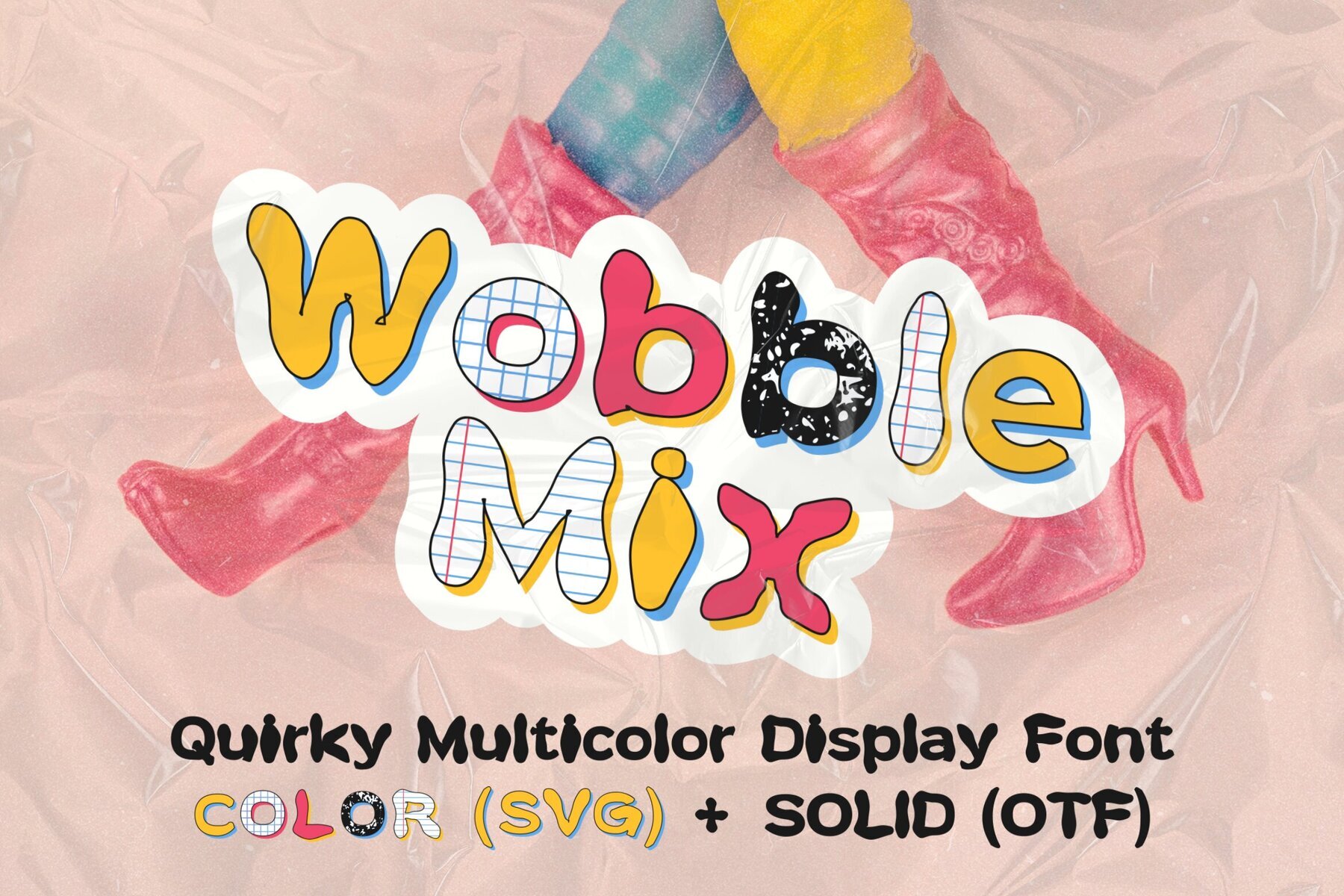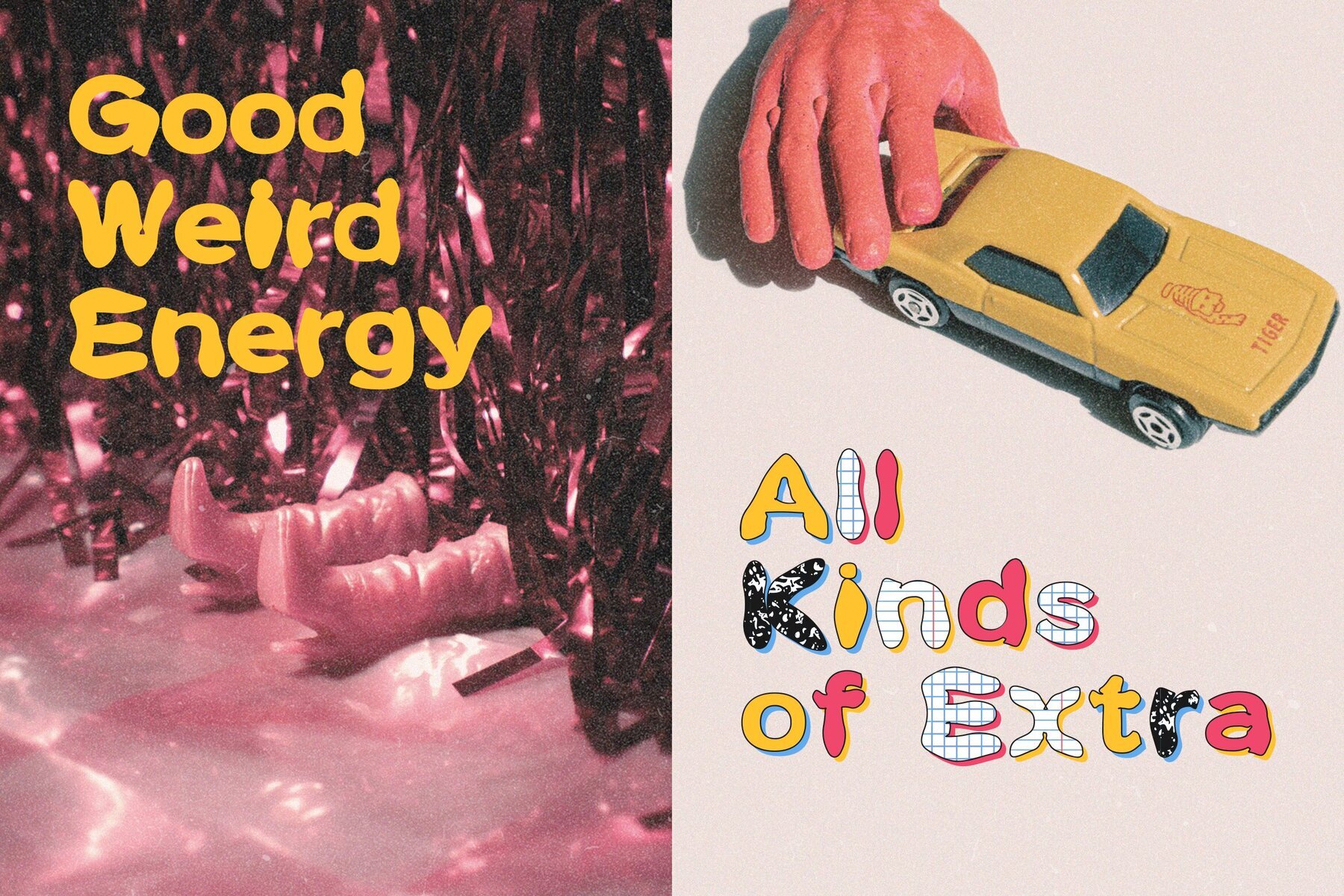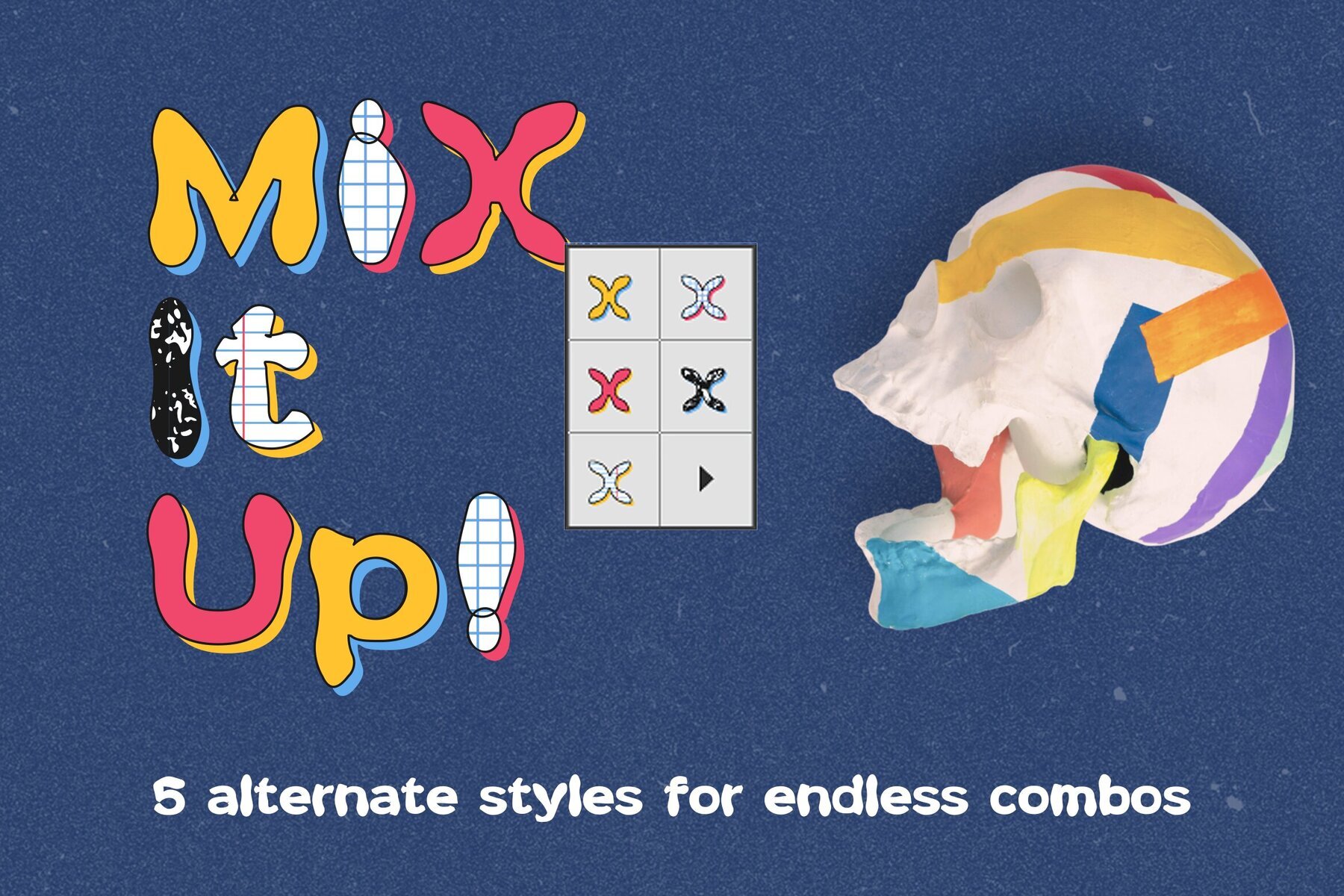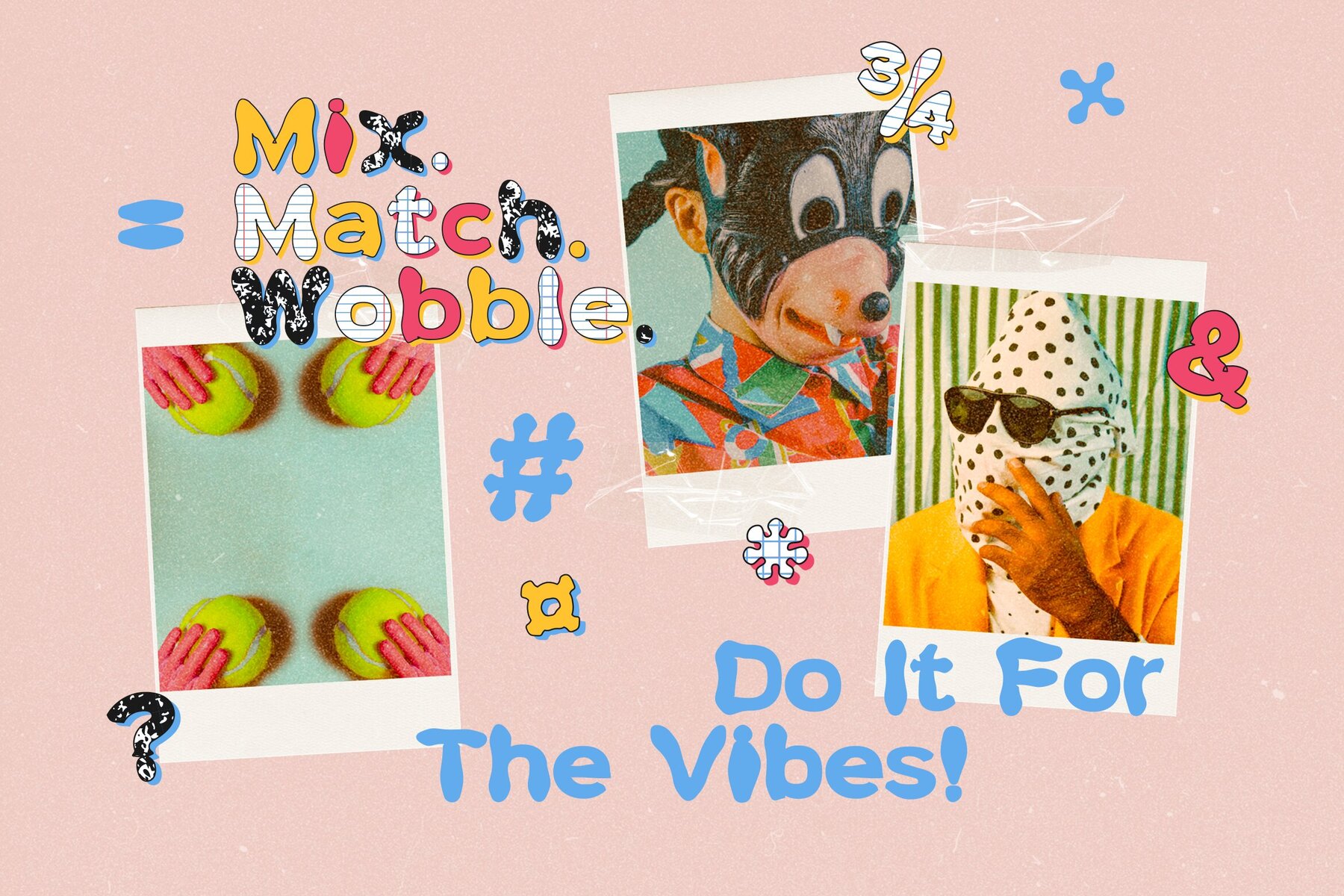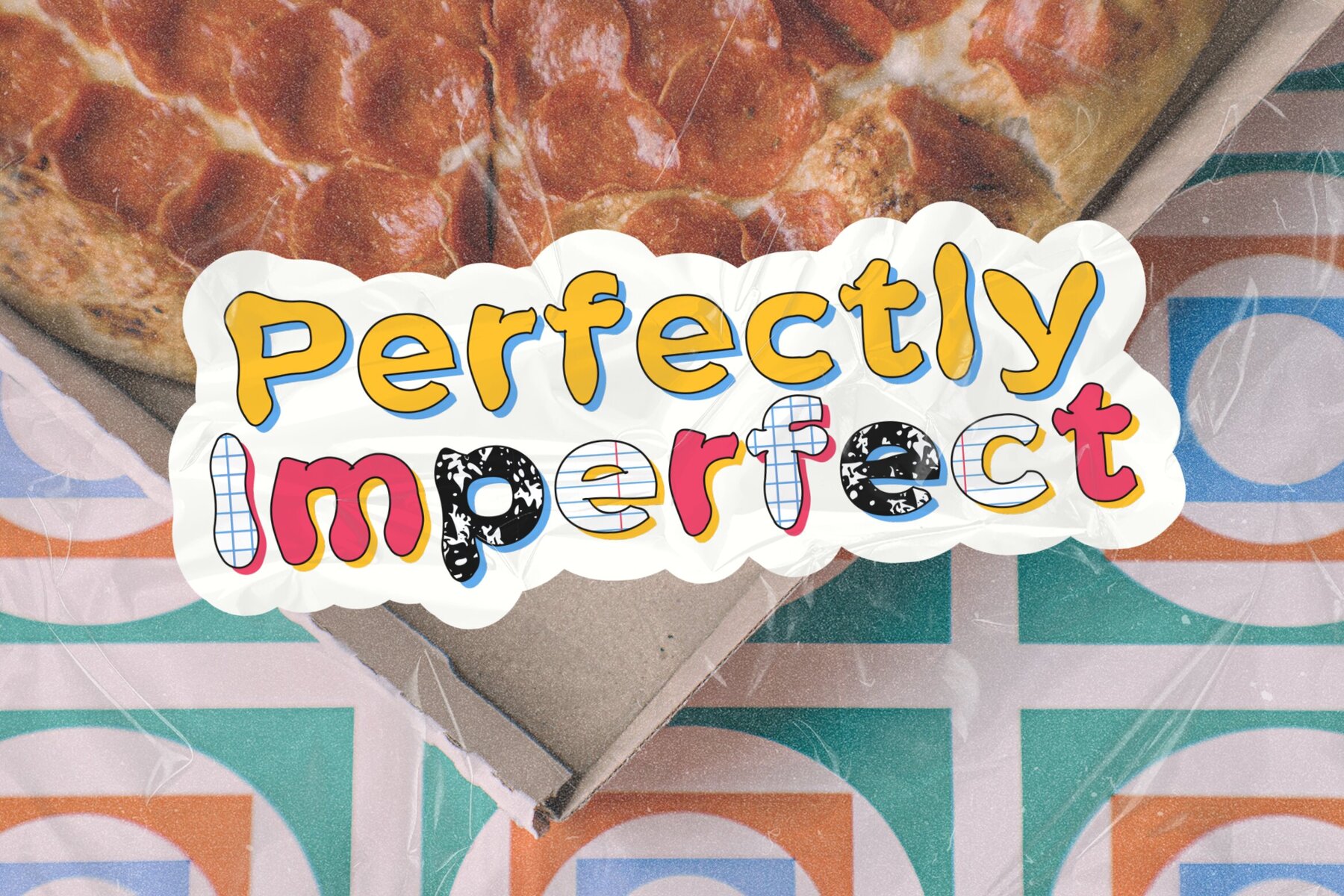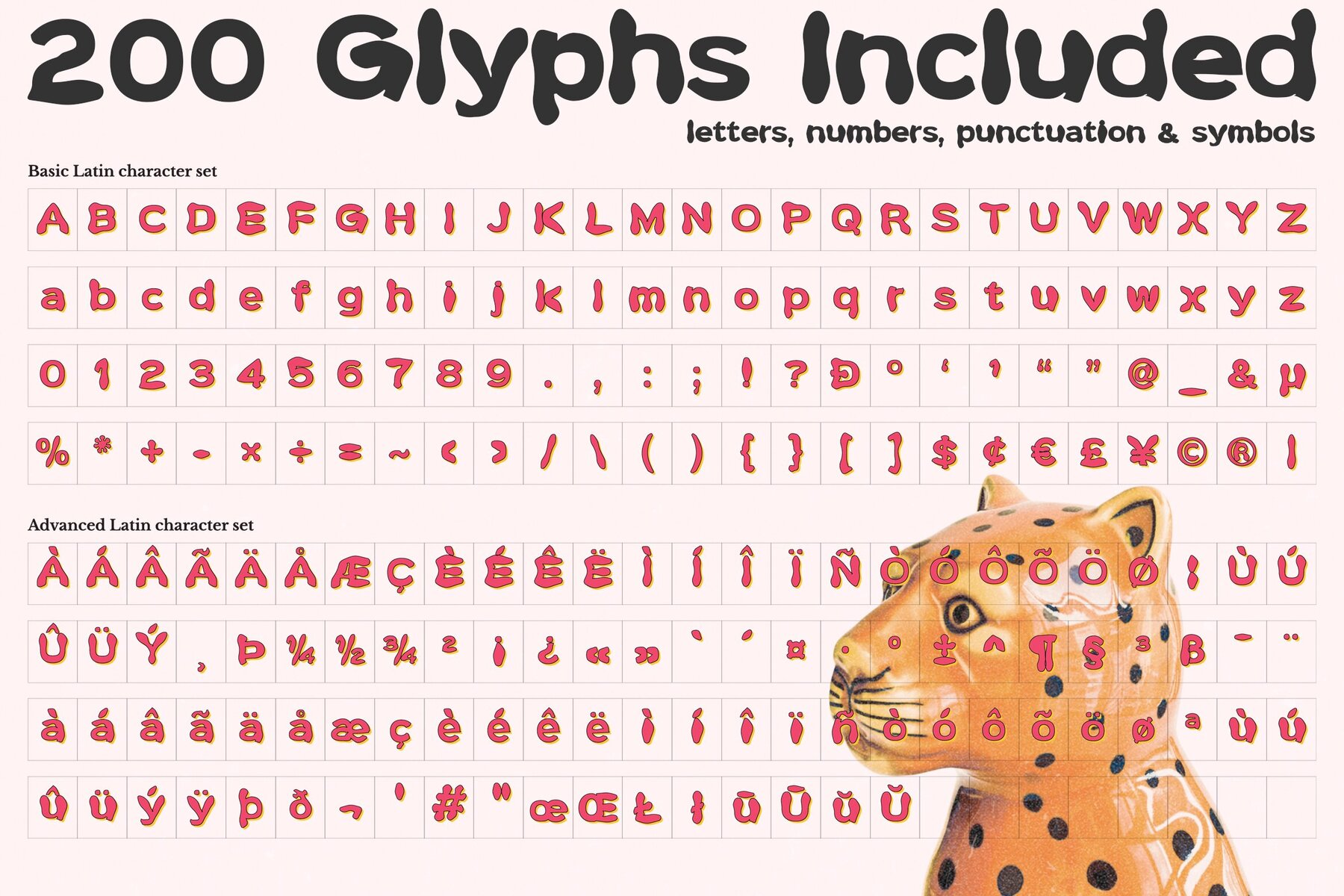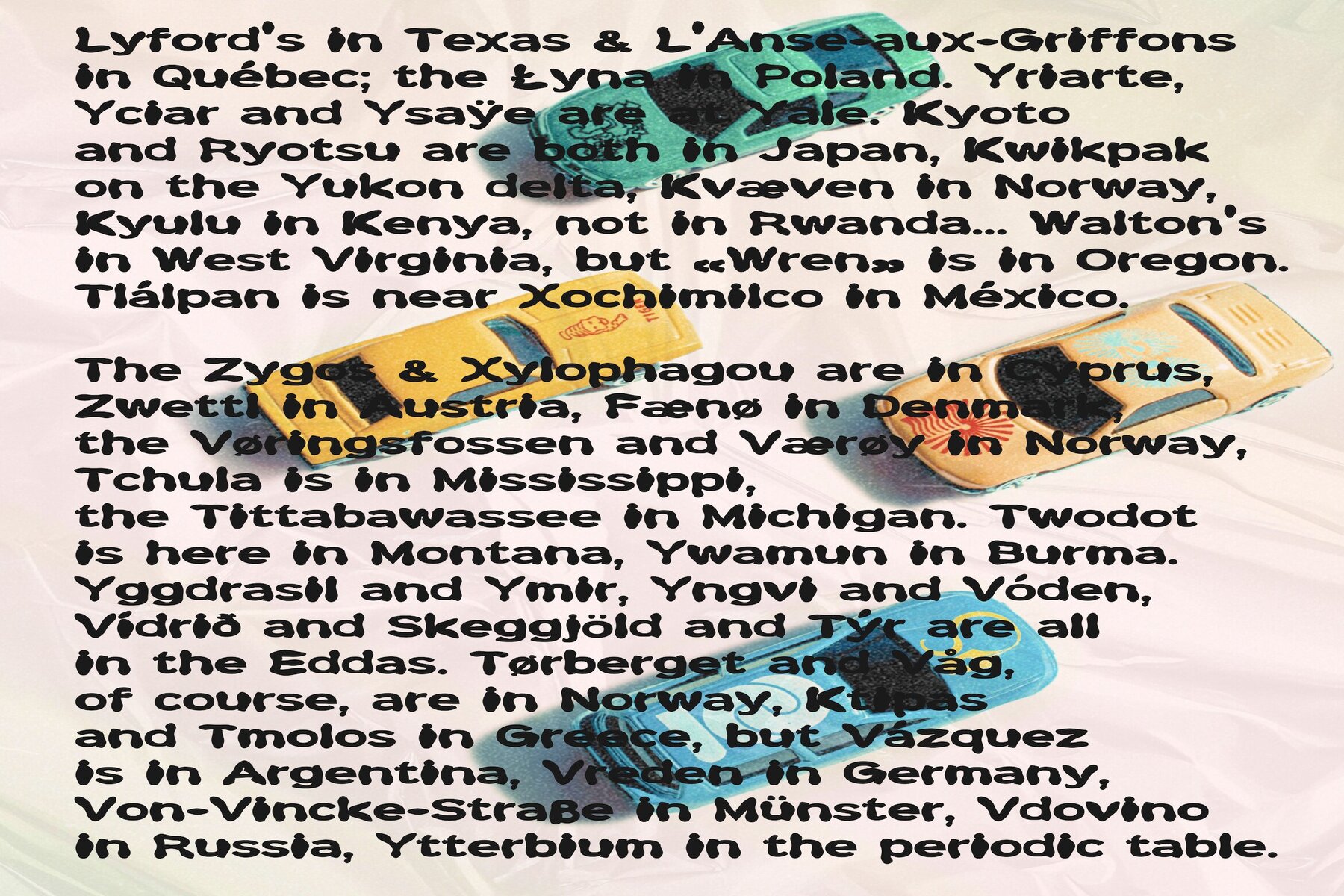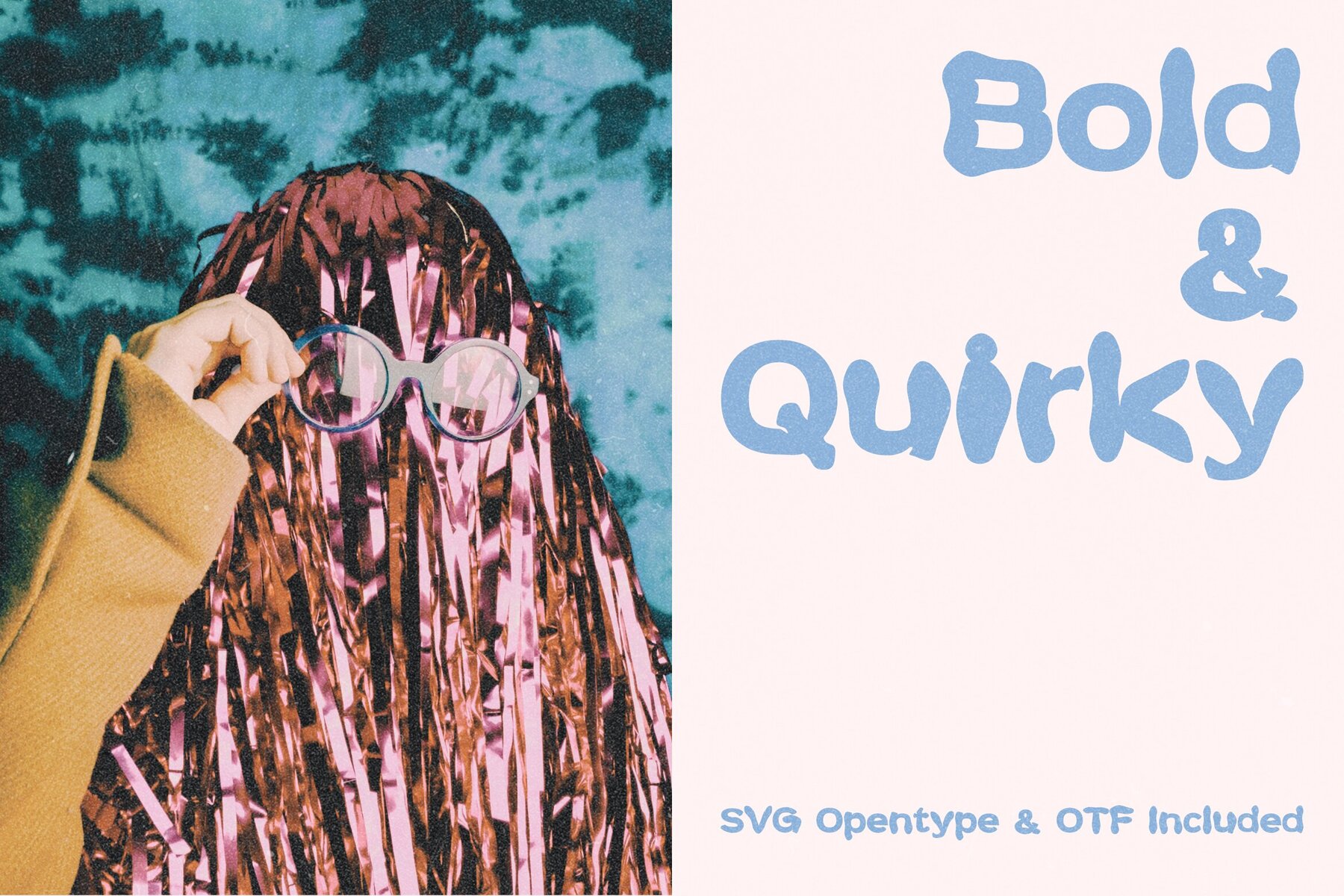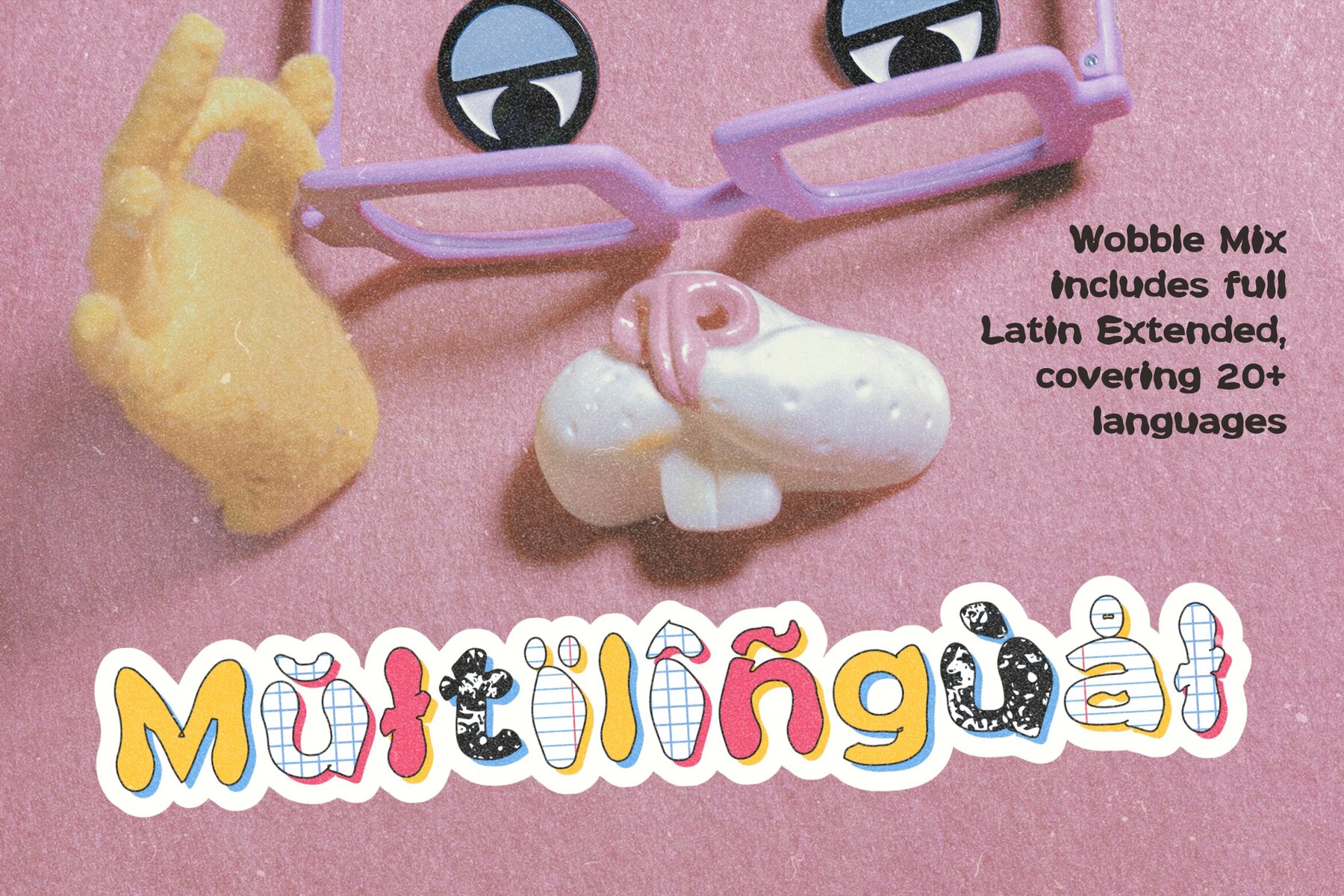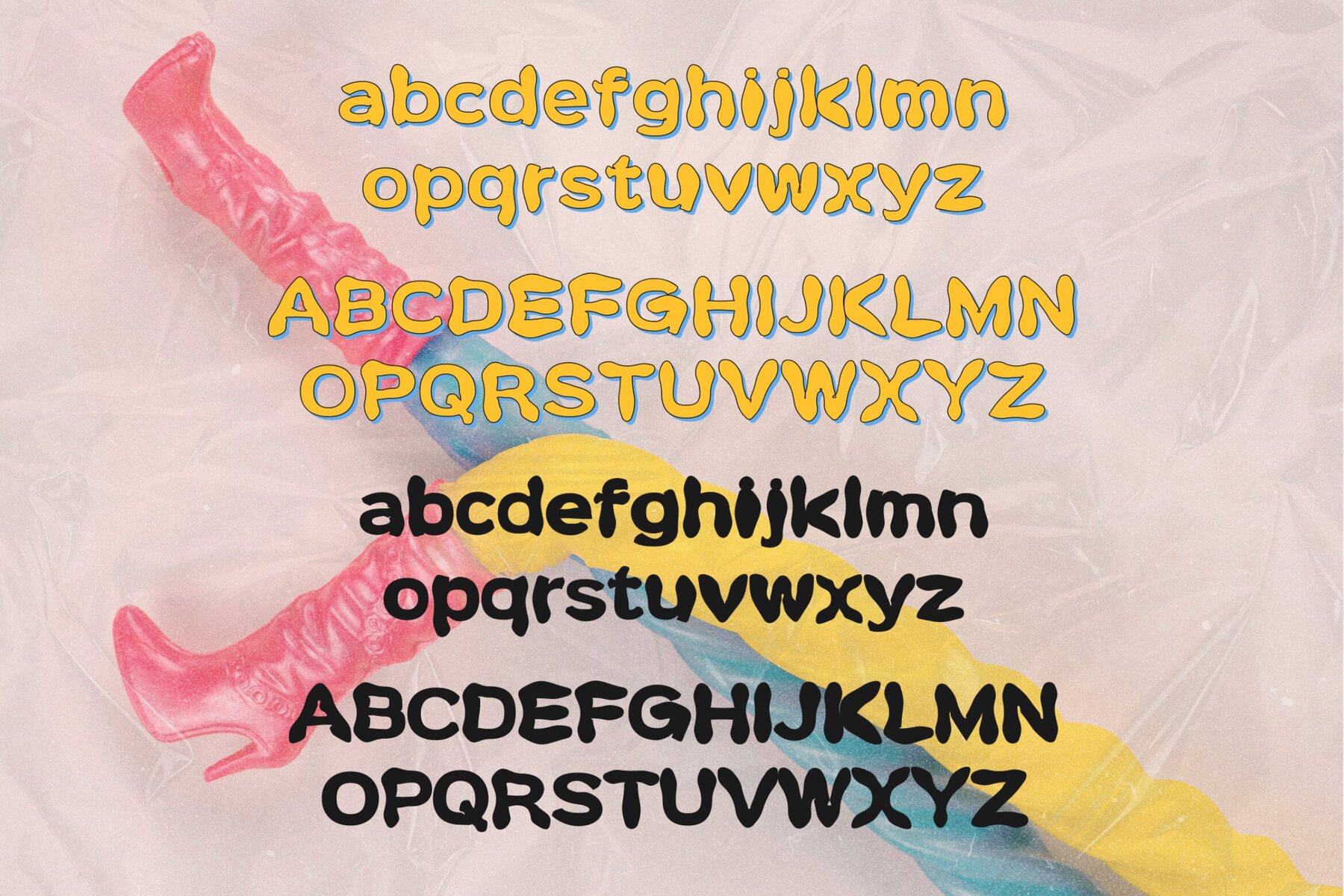
Wobble Mix Font
Wobble Mix is your gateway to adding a splash of vibrant personality to your creative projects! This lively multicolor display font is designed to infuse fun and a bit of delightful chaos into branding, social media content, posters, packaging, and any design needing an extra dash of bold expression.Wobble Mix: Multicolor Fun in Every Letter